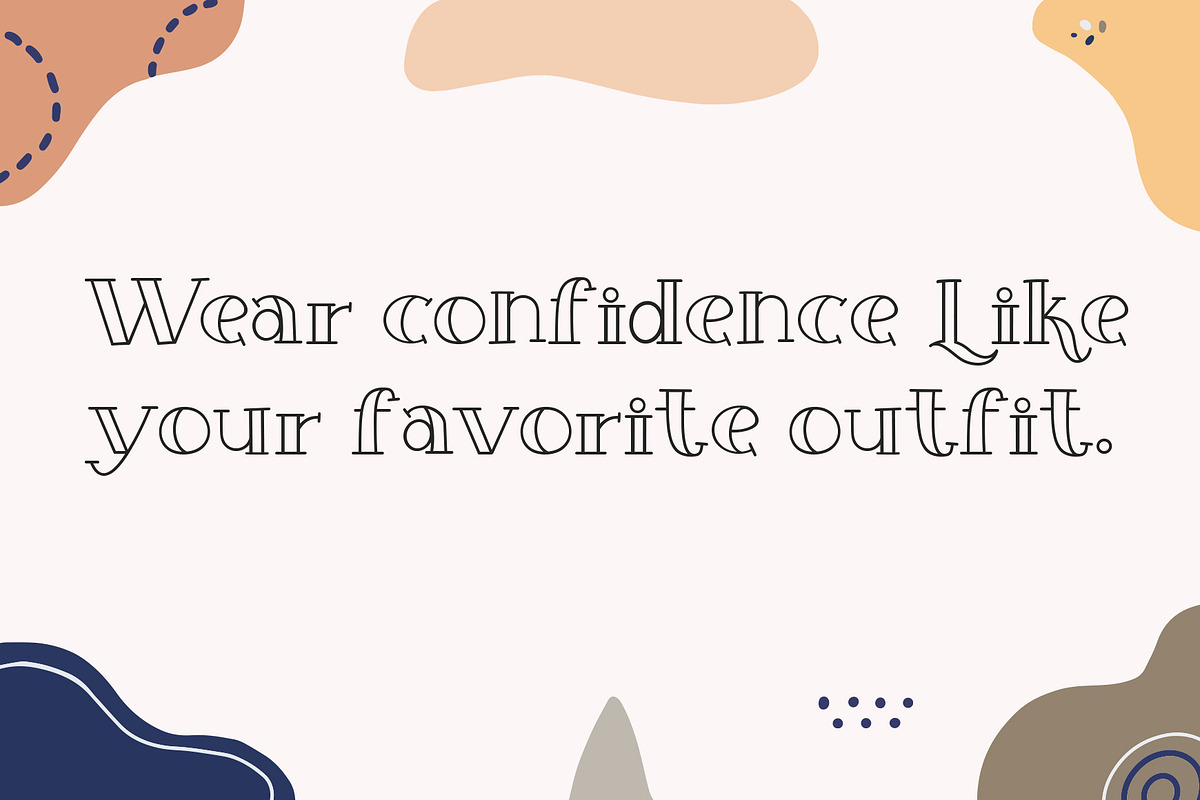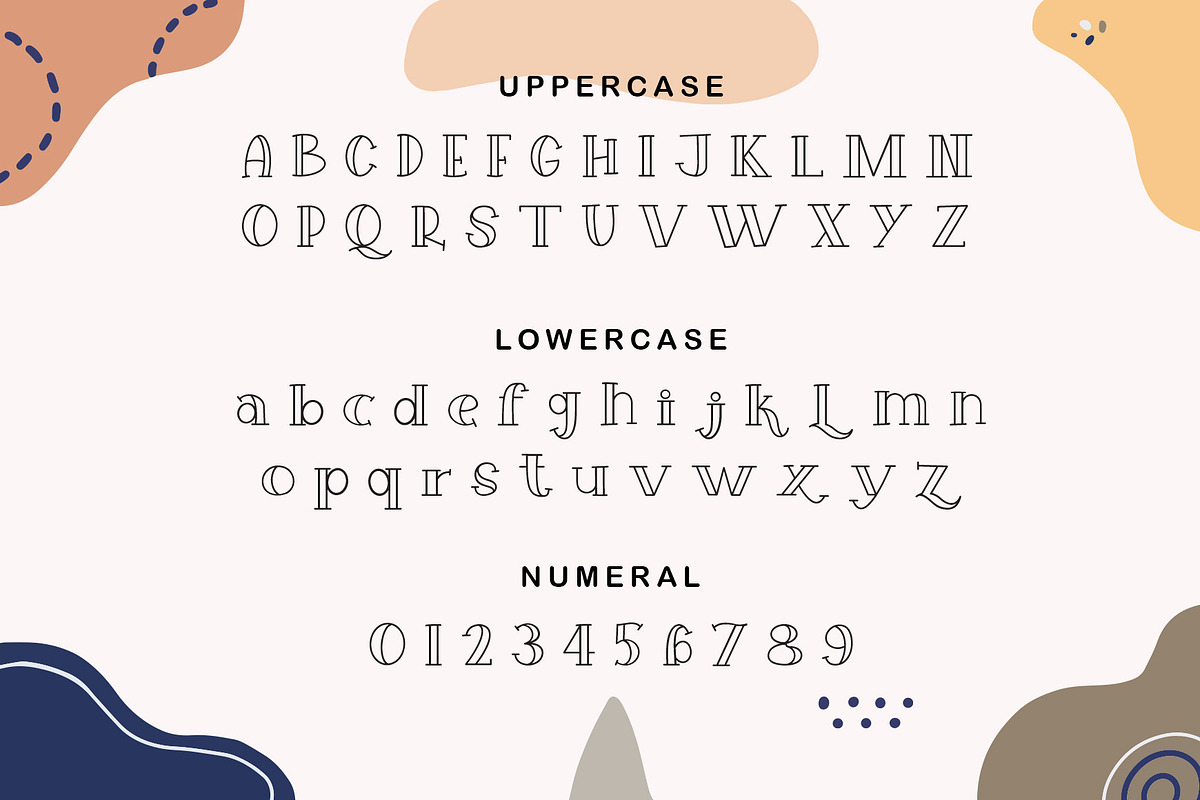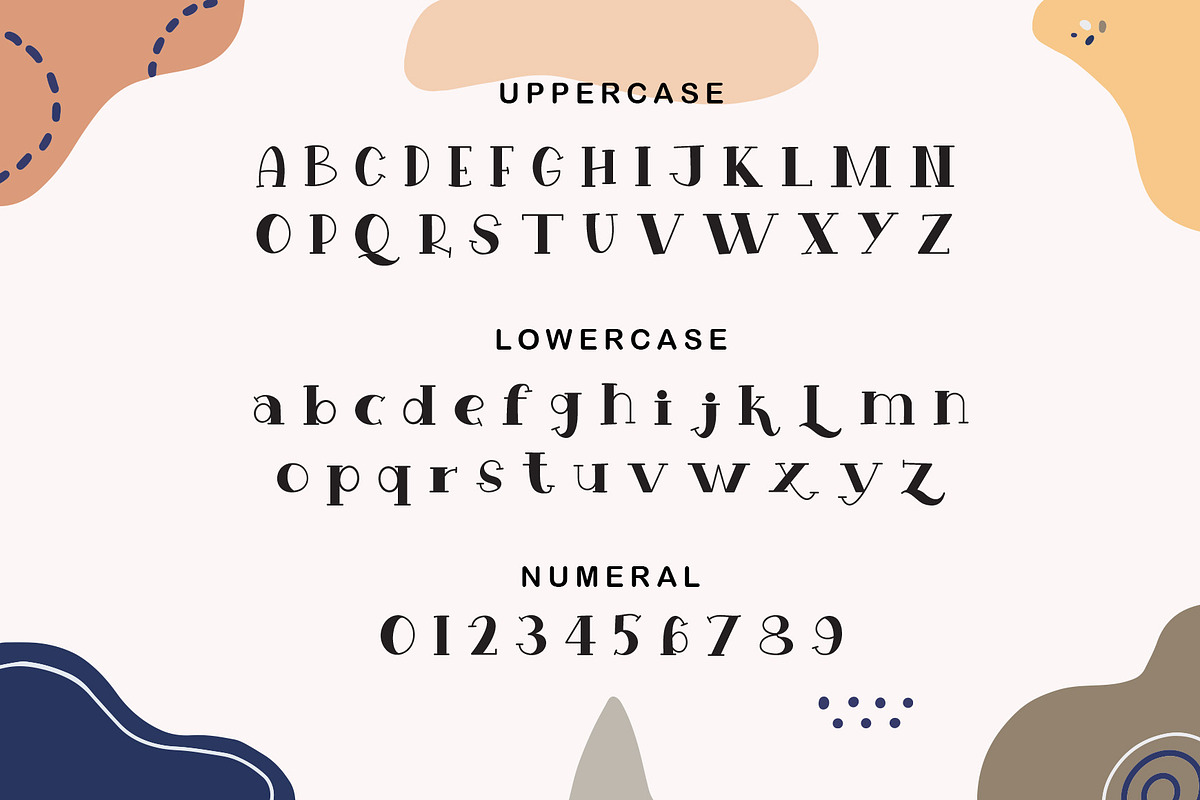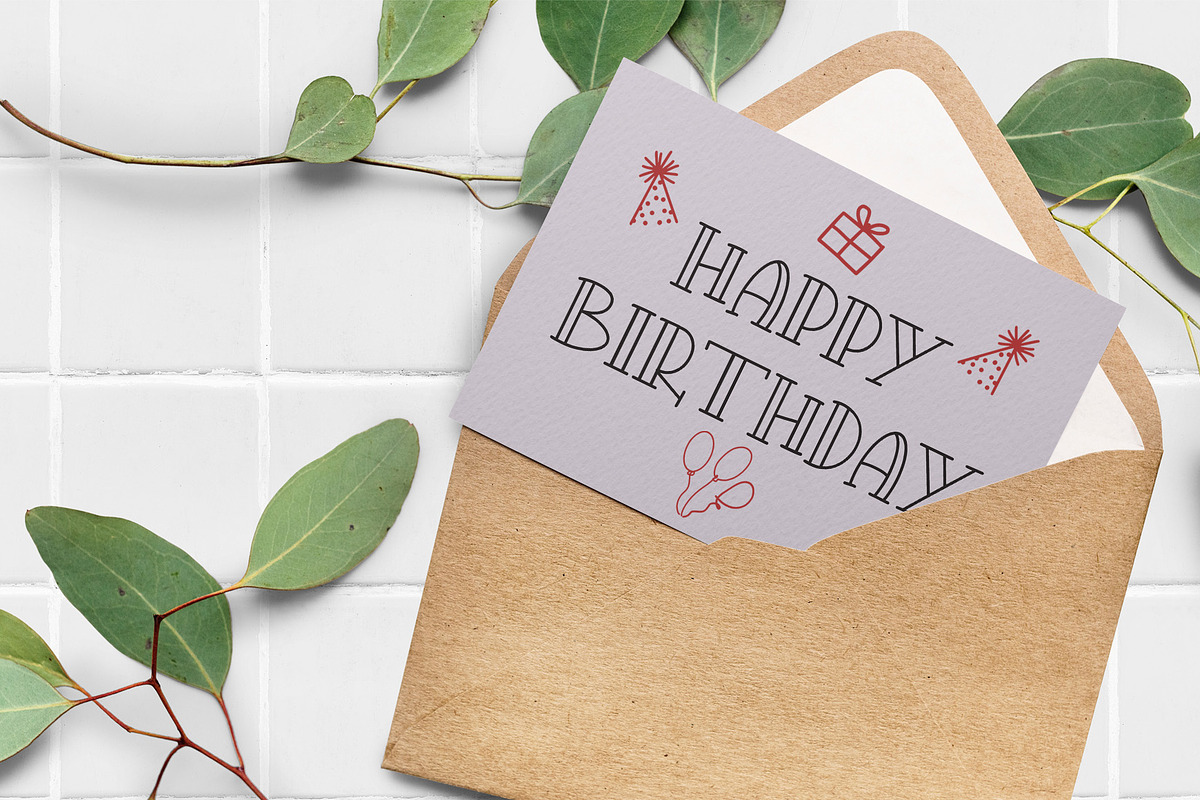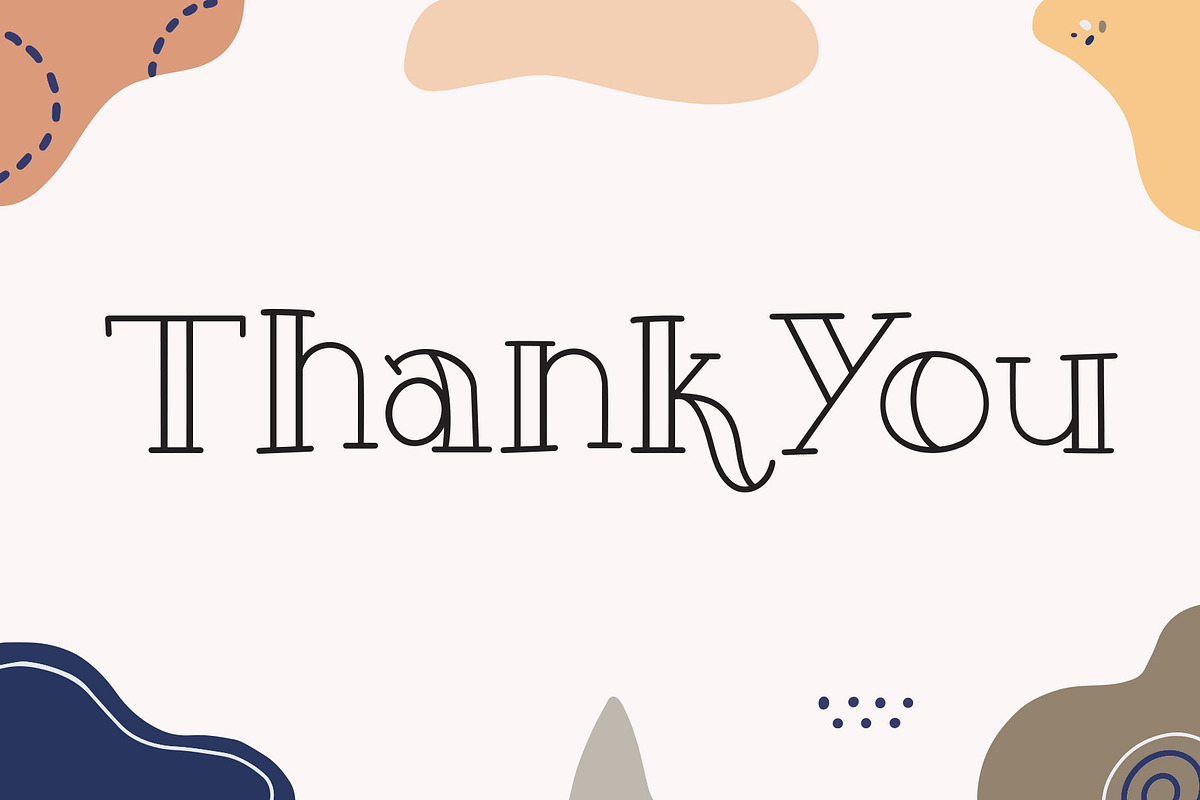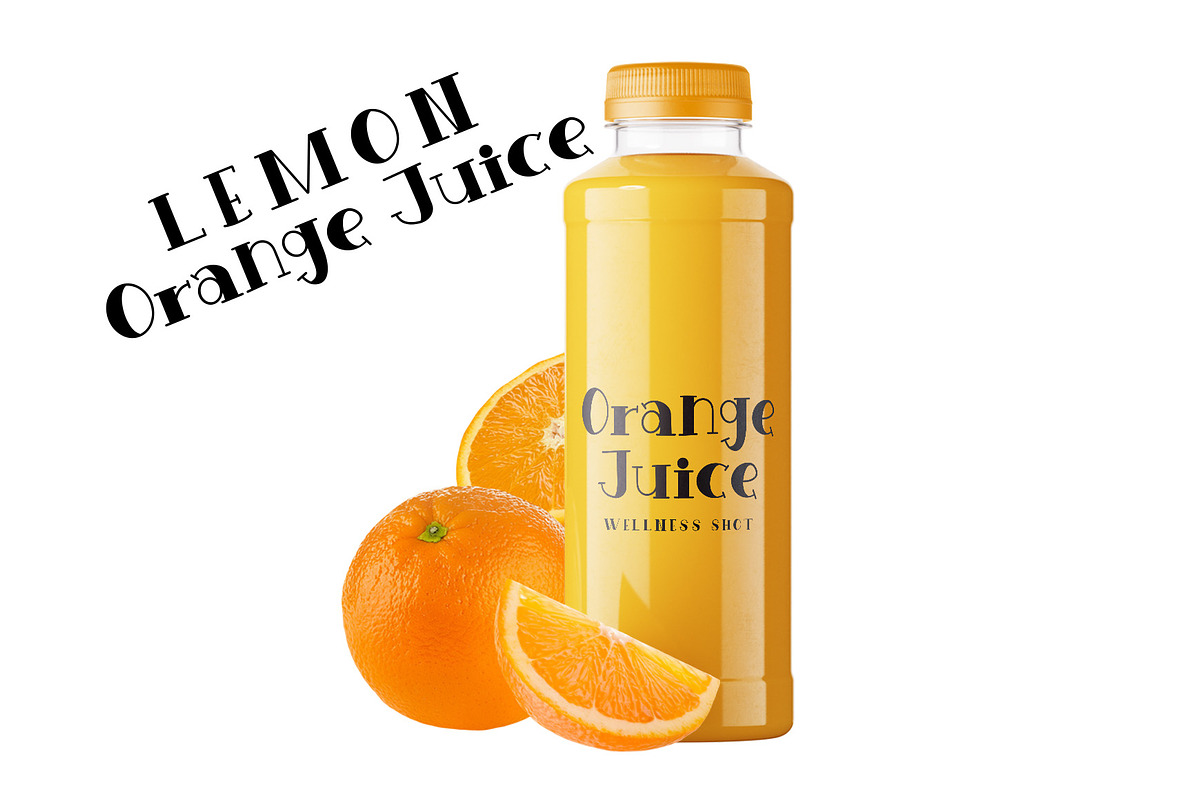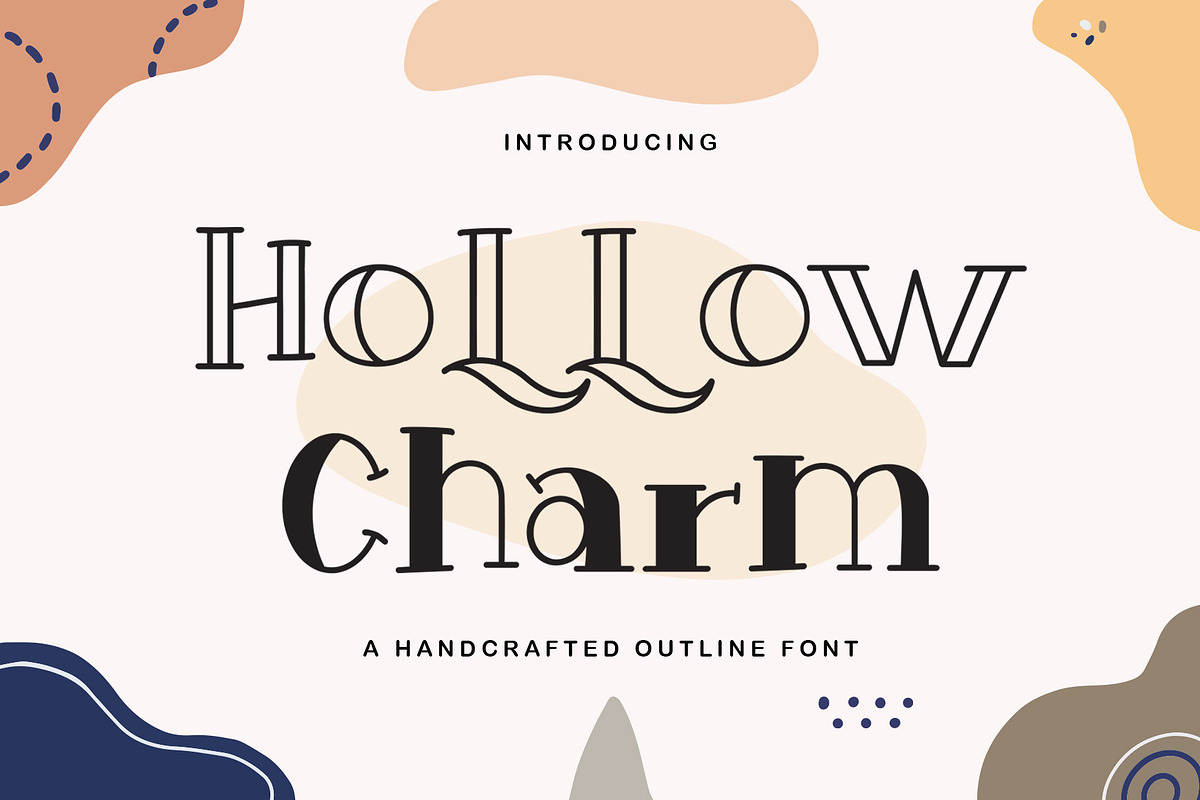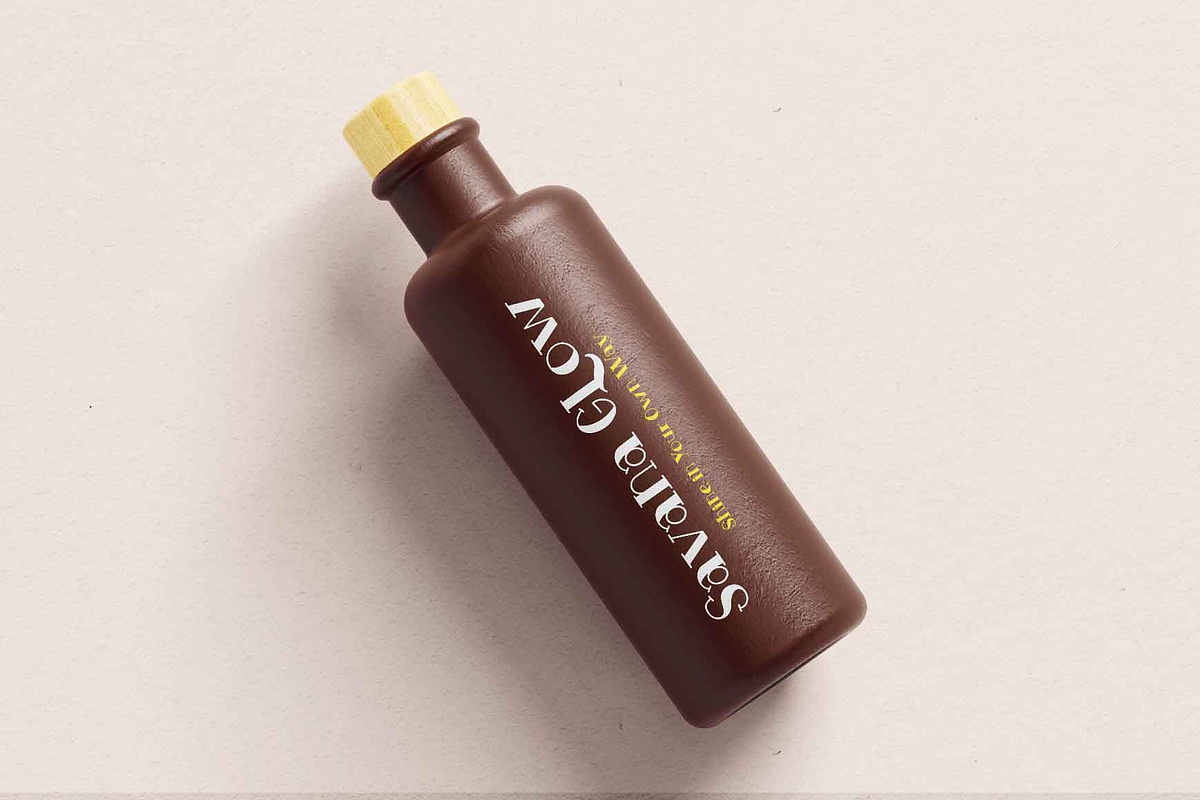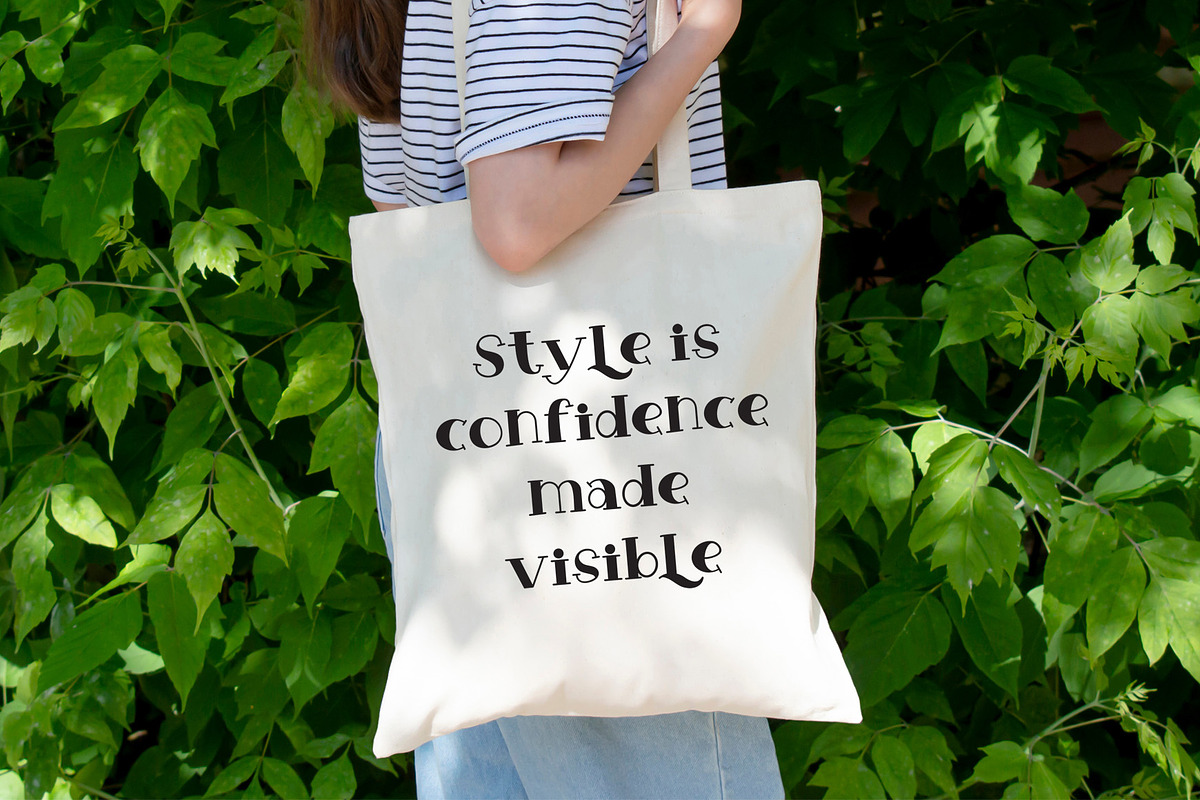
Hollow Charm Font Duo
Introducing "Hollow Charm" is a fabulous font duo that’s consists of a outline and a filled version.
With its meticulously crafted outlines and organic textures, "Hollow Charm" exudes a handmade aesthetic that brings warmth and authenticity to any project. Whether you're designing logos, labels, tags, packaging, posters, or invitations, this font infuses your creations with rustic charm and unique character.
Embrace the artisanal beauty of "Hollow Charm" as it effortlessly enhances your designs. With its handcrafted details and versatile style, this font provides endless possibilities for creative expression, ensuring that your projects stand out with handmade flair and rustic elegance.
Step into the world of handcrafted design with "Hollow Charm" and let your creativity flourish with its rustic charm and artisanal appeal.